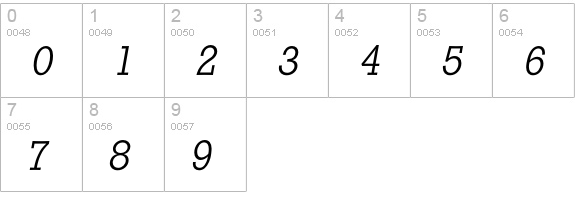
Stafford-LightIta is a visually stunning font that effortlessly combines elegance and sophistication. It is the perfect choice for projects that require a touch of class and refinement. With its delicate and graceful letterforms, Stafford-LightIta exudes a sense of timeless beauty that will captivate any audience. What sets Stafford-LightIta apart is not only its exquisite design, but also the fact that it is available for free. Yes, you read that right - this amazing font is freely available to download at FontsMarket.com. Now, you can enhance your creative endeavors without any cost or limitations. Whether you are working on a personal project, a professional presentation, or a commercial design, Stafford-LightIta will elevate your work to new heights. Its sleek and slender strokes effortlessly flow across the page, creating a harmonious balance that is both visually pleasing and easy to read. With Stafford-LightIta, you will have access to a wide range of characters, including uppercase letters, lowercase letters, numbers, punctuation marks, and special symbols. This versatility ensures that you can bring your ideas to life and create stunning typographic compositions that leave a lasting impression. Furthermore, Stafford-LightIta is compatible with various design software, making it incredibly convenient to integrate into your workflow. Whether you are a seasoned designer or a beginner, this font is user-friendly and easy to work with, allowing you to focus on the creative process rather than technicalities. Don't miss out on the opportunity to elevate your designs with Stafford-LightIta. Download this exceptional font for free at FontsMarket.com and unlock a world of possibilities. Let your creativity soar and make a lasting impact with the timeless beauty of Stafford-LightIta.